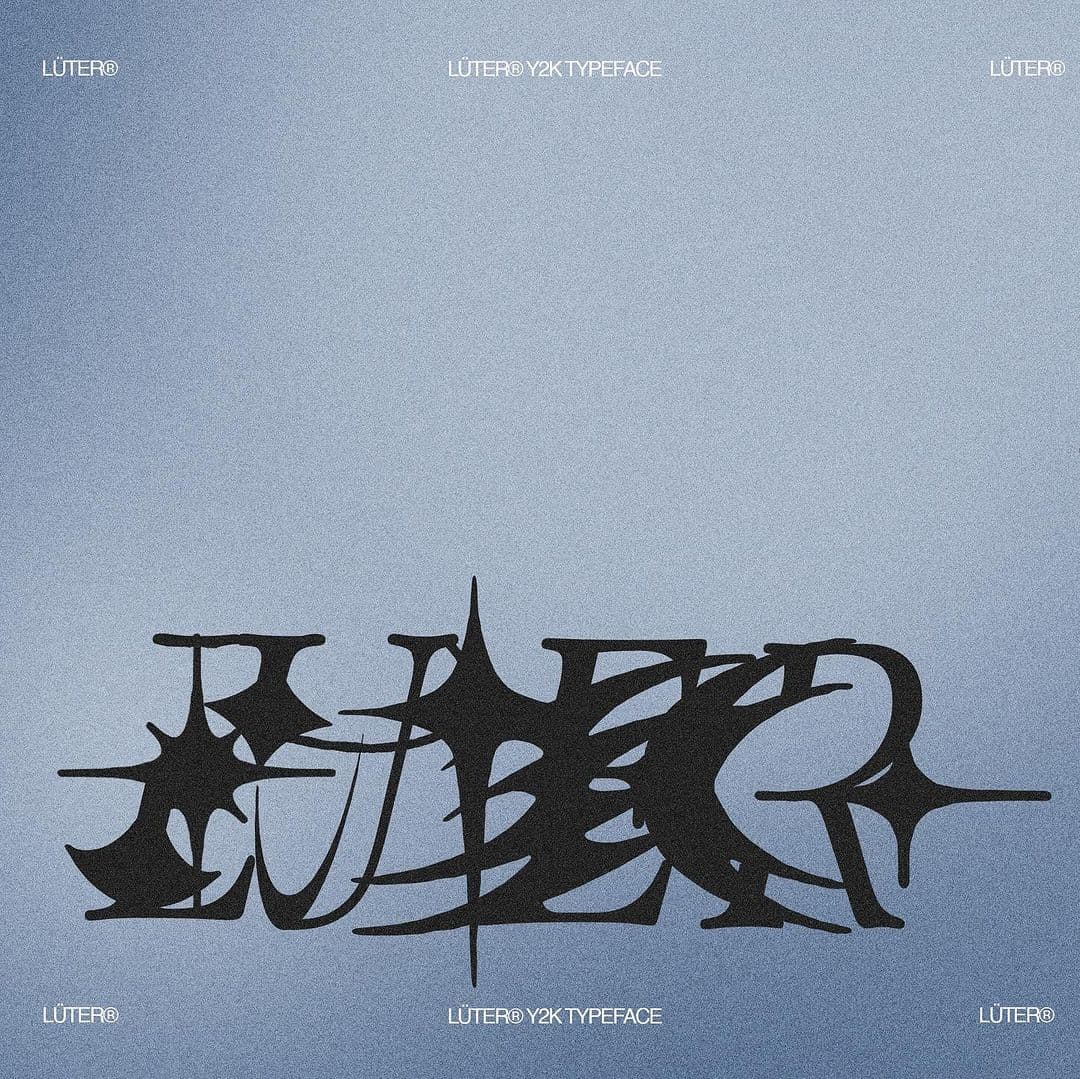
<p><strong>Font Features:</strong></p> <ul> <li>The Typeface is in Y2k Style</li> <li>The Typeface is Y2k Letters with Y2k Shapes</li> <li>The Typeface will fit with any design and will improve the design level</li> </ul>